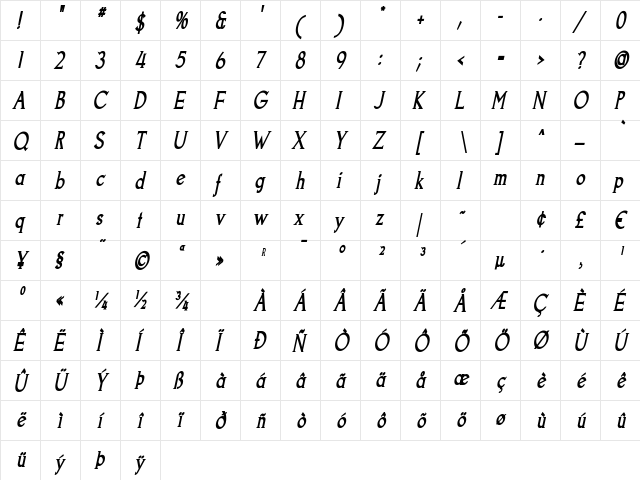
Goodfish Bold Italic
Design Context for Goodfish Typeface
Goodfish offers clean, dependable letterforms without strong stylistic allegiance, making it a practical choice for designers who need flexibility. The dynamic lean of this cut emphasises speed and emphasis in any layout. The heavy weight commands attention and anchors typographic hierarchies.
Pro Tip: Use Goodfish for emphasis, pull quotes, and subheadings where its slanted energy can add rhythm to the layout.